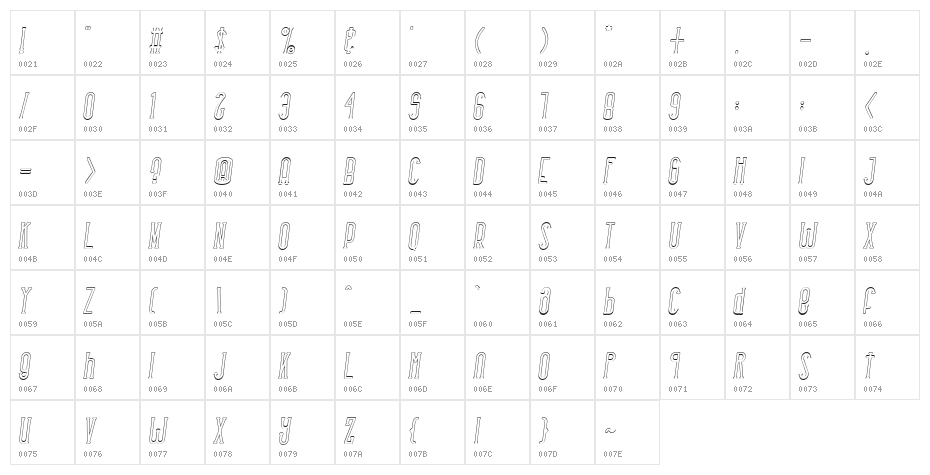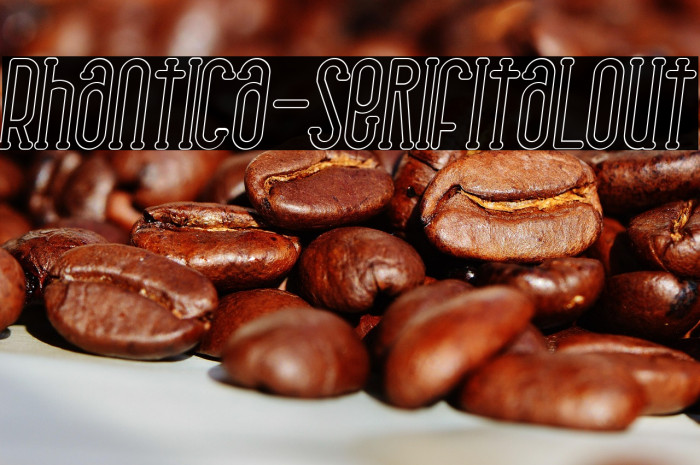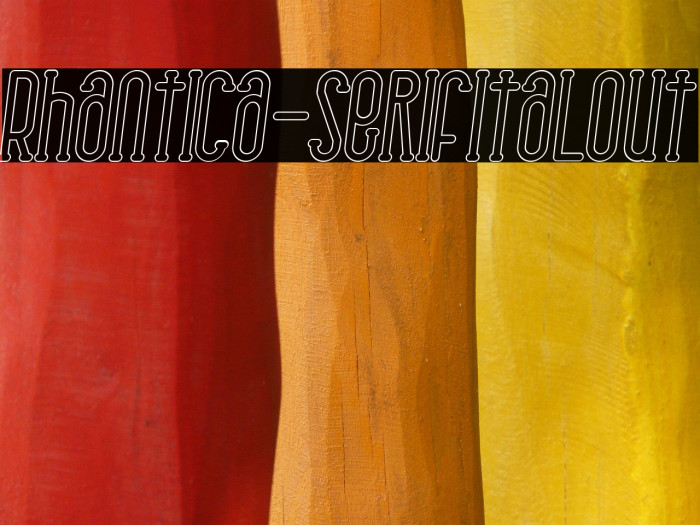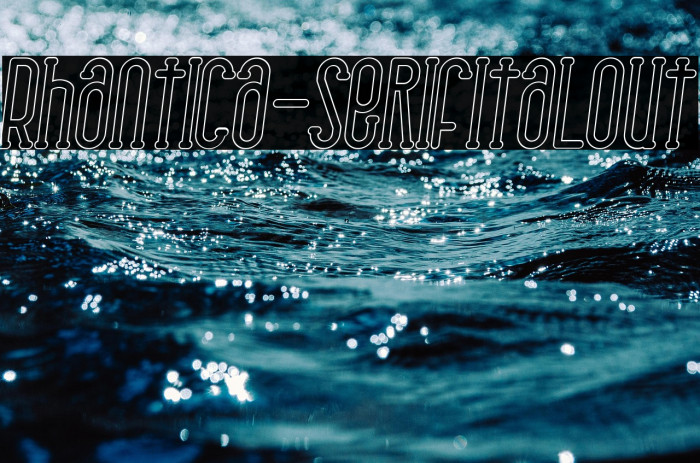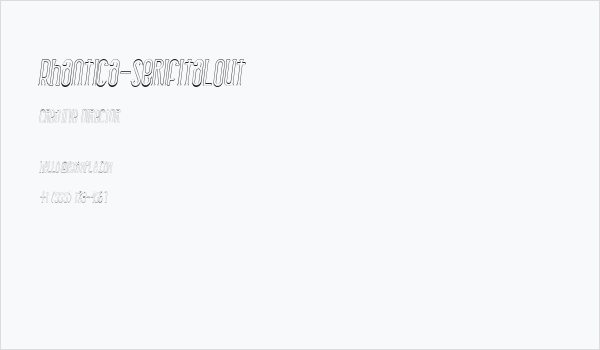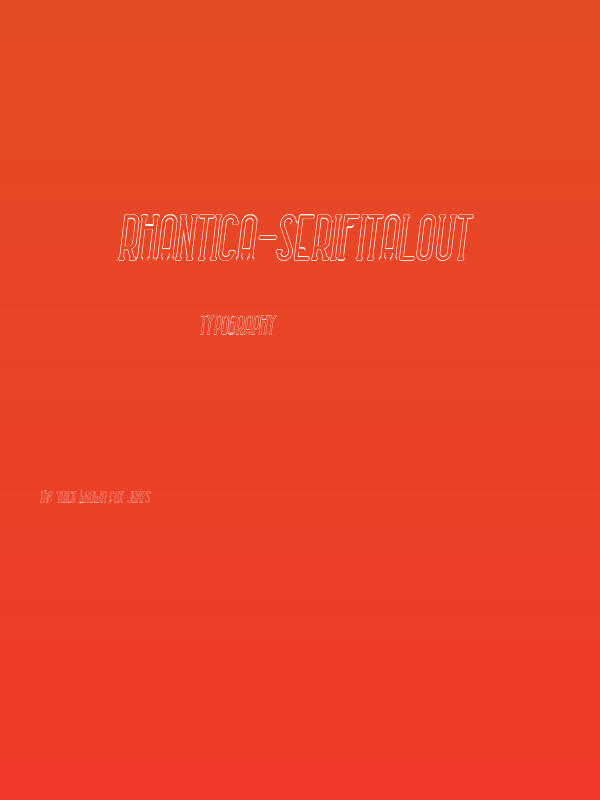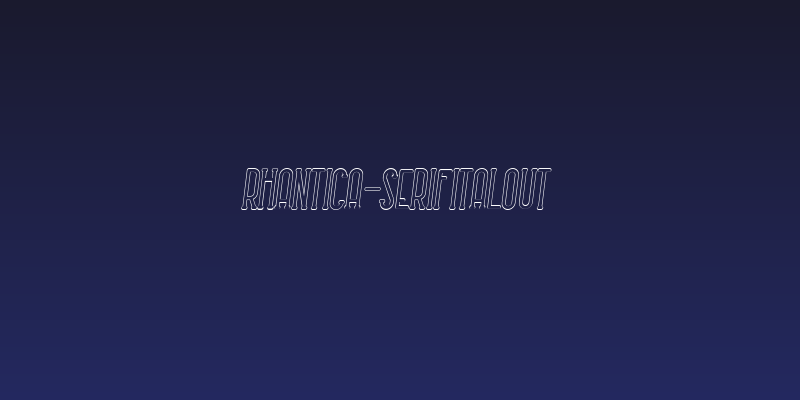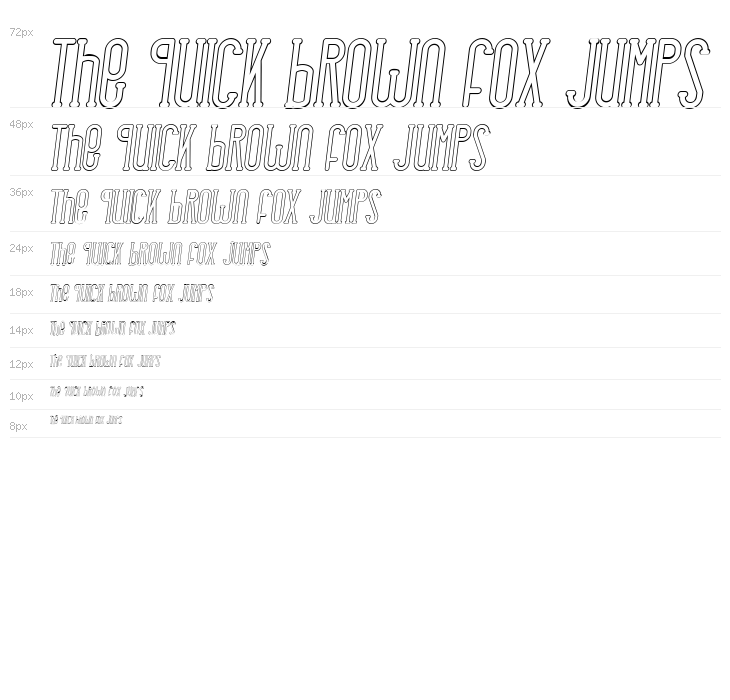
Rhantica-SerifItalOut Font
Rhantica-SerifItalOut Description
This font features a unique blend of serif elements with a modern twist, characterized by its outlined, hollow appearance. The letters are italicized, giving them a dynamic and forward-leaning posture. The serifs are subtle yet present, adding a touch of classic elegance to the otherwise contemporary design. The font maintains a consistent stroke width, contributing to a clean and streamlined look. The characters are slightly condensed, enhancing the overall compactness and efficiency of space usage. This style is particularly eye-catching and suitable for creative and artistic projects.